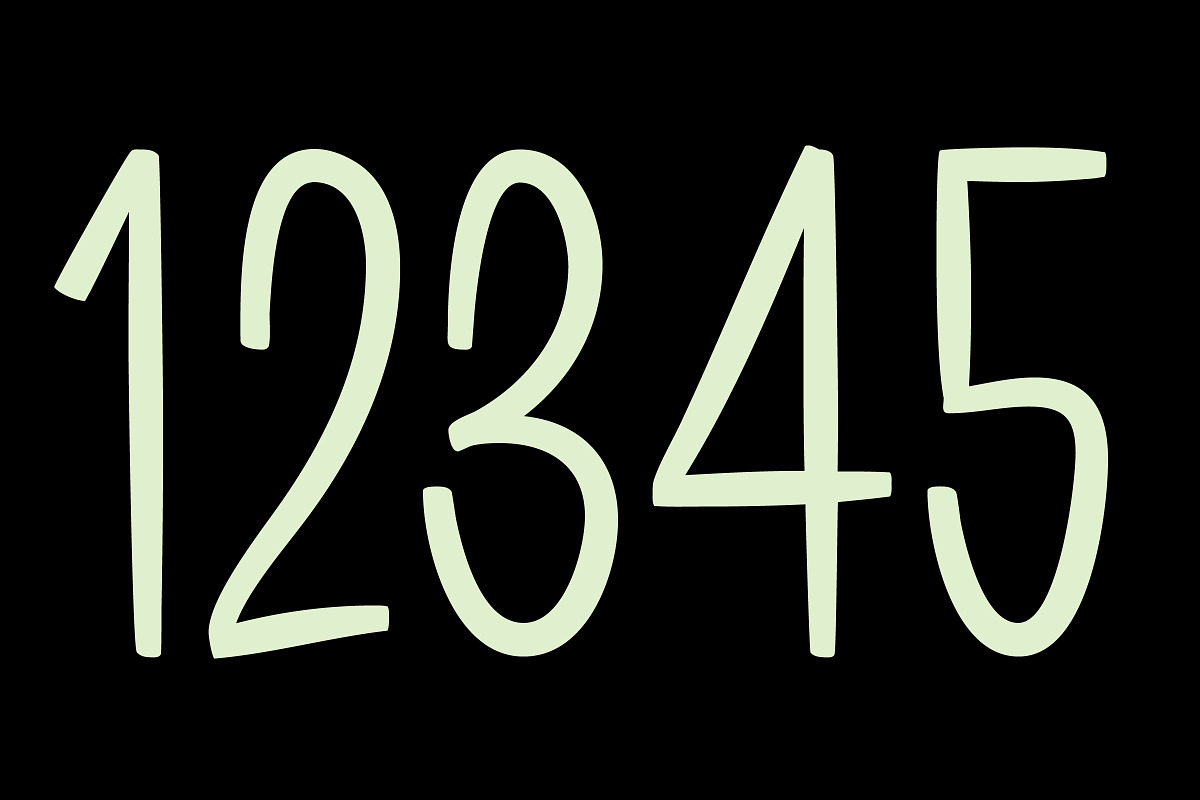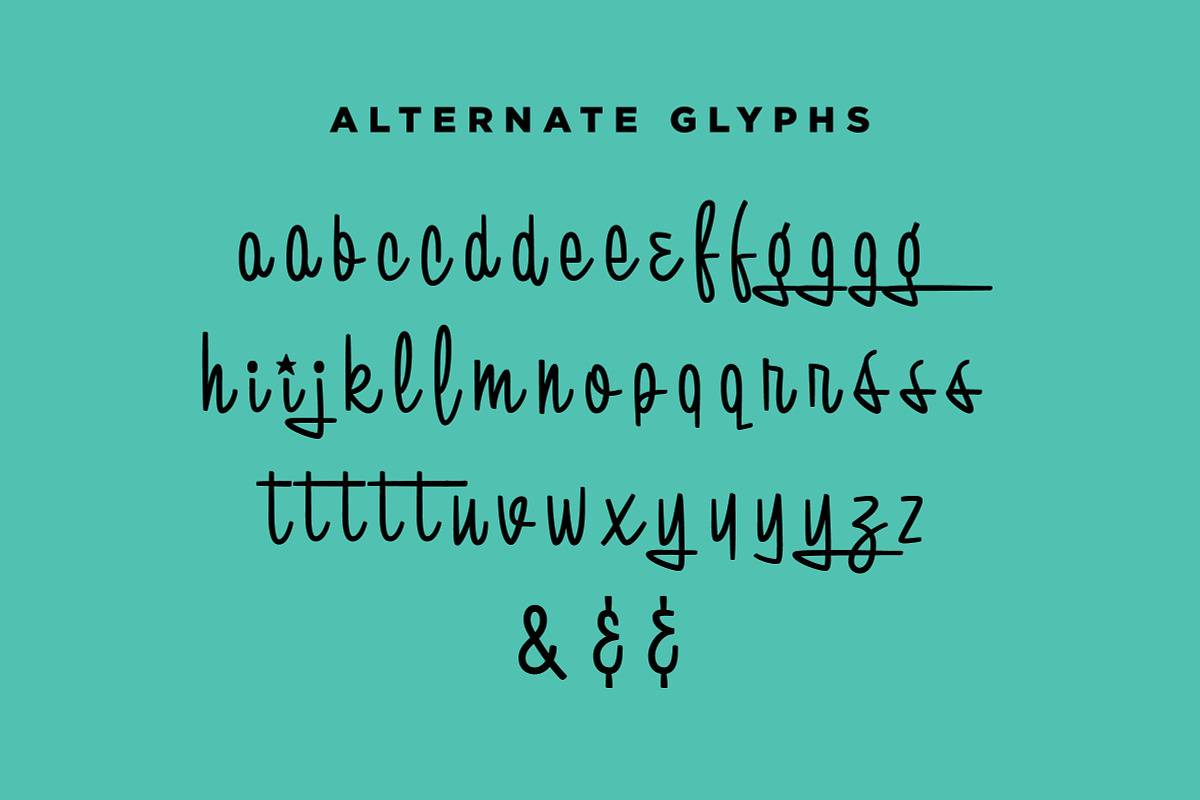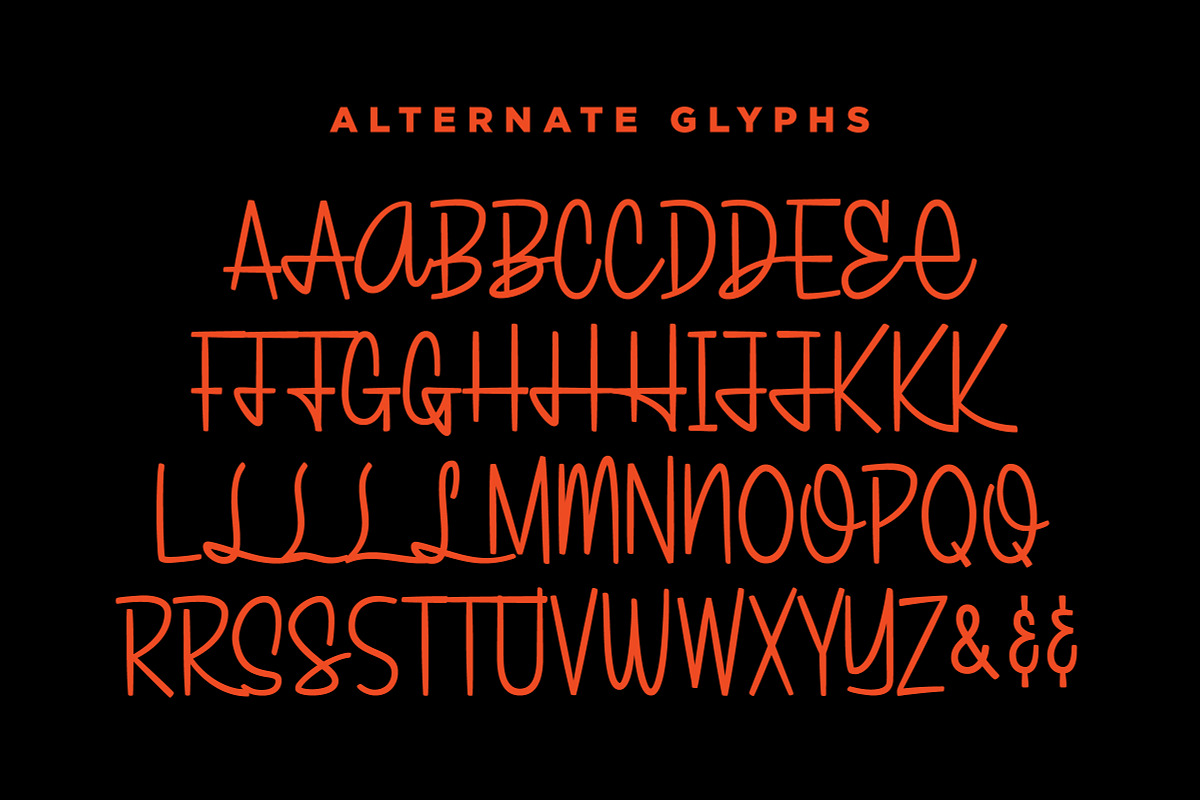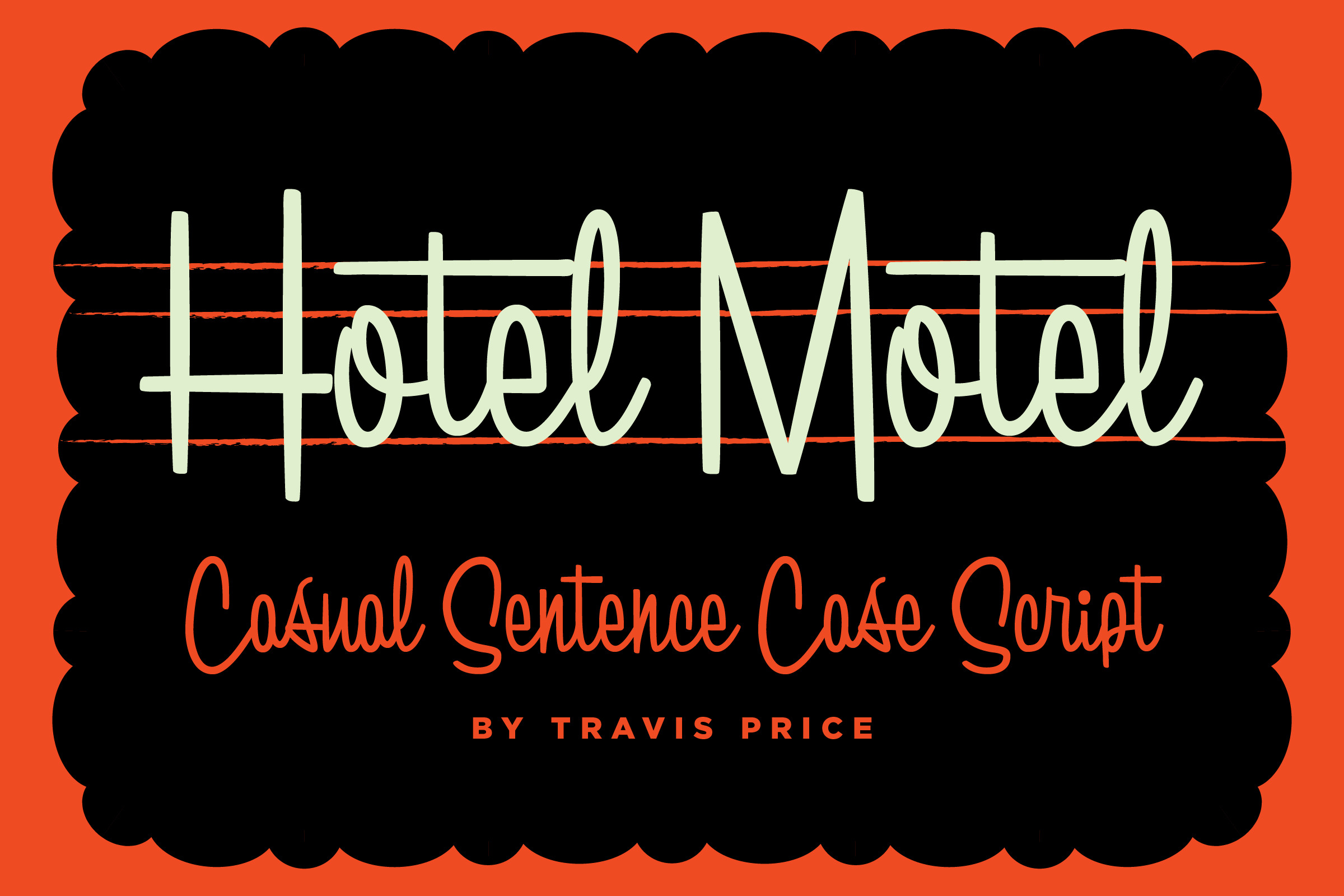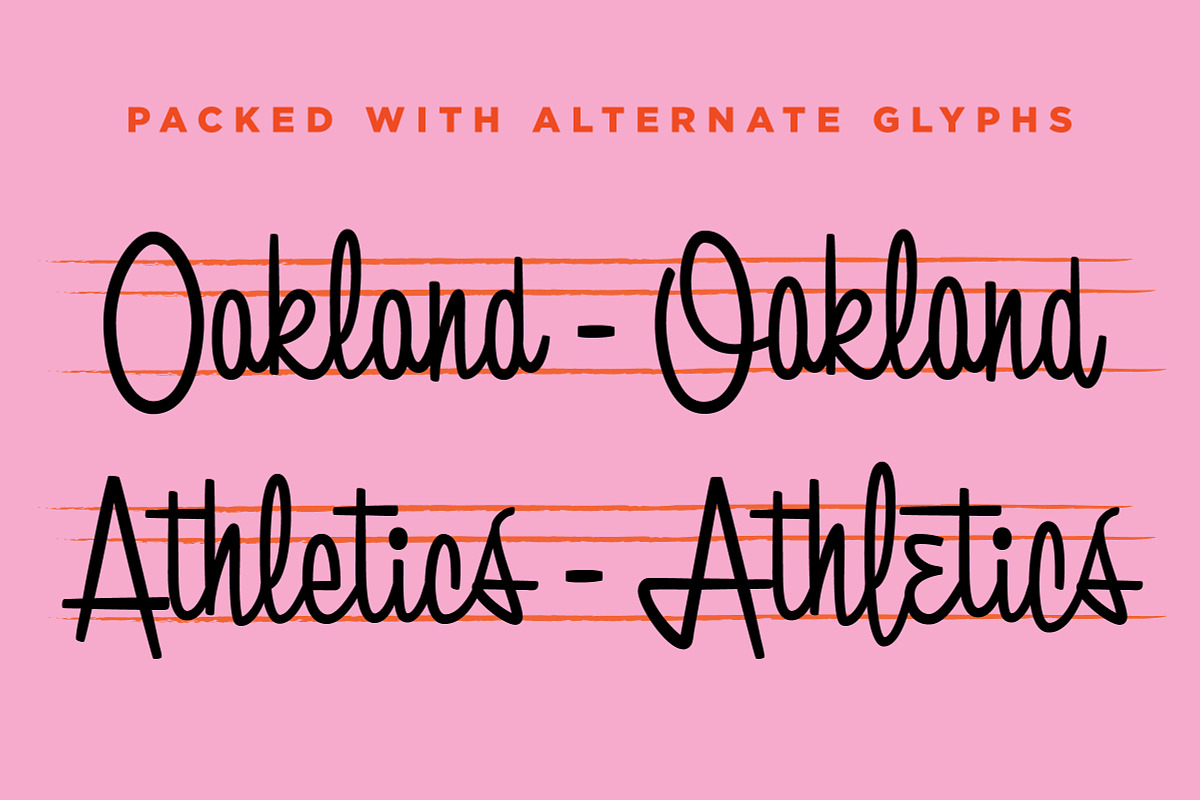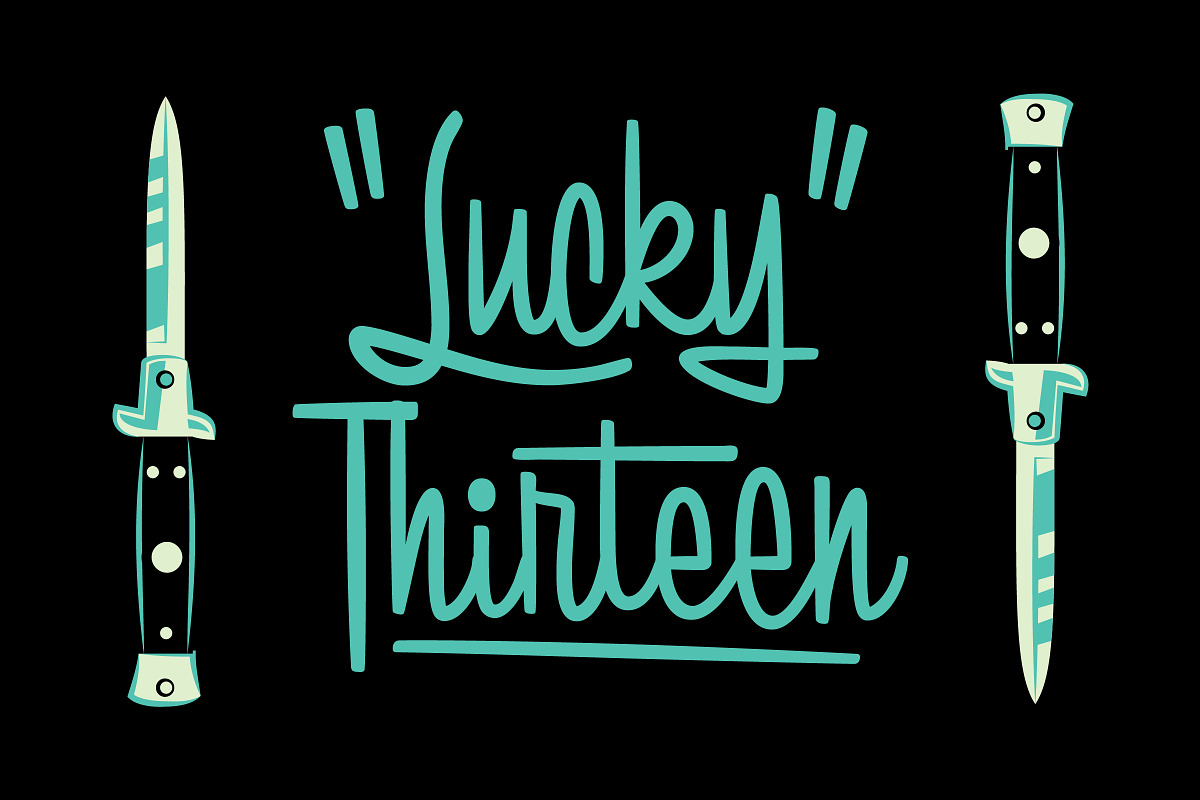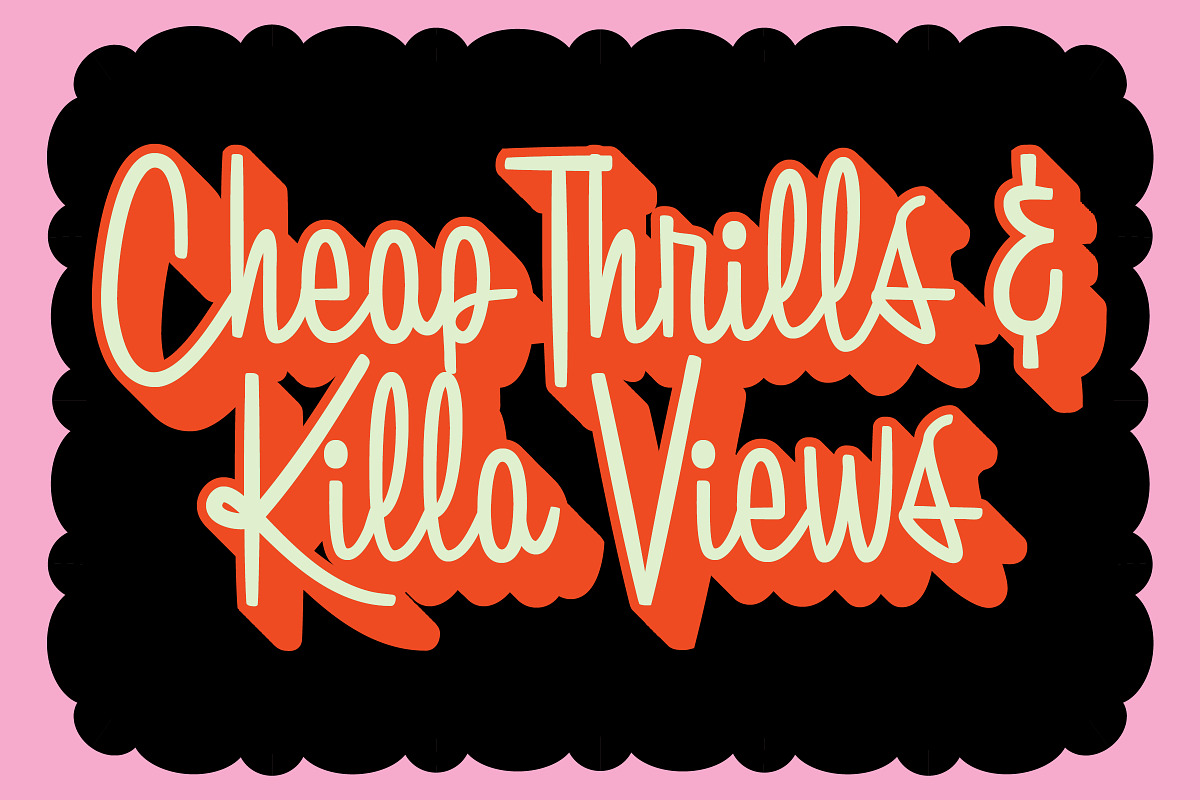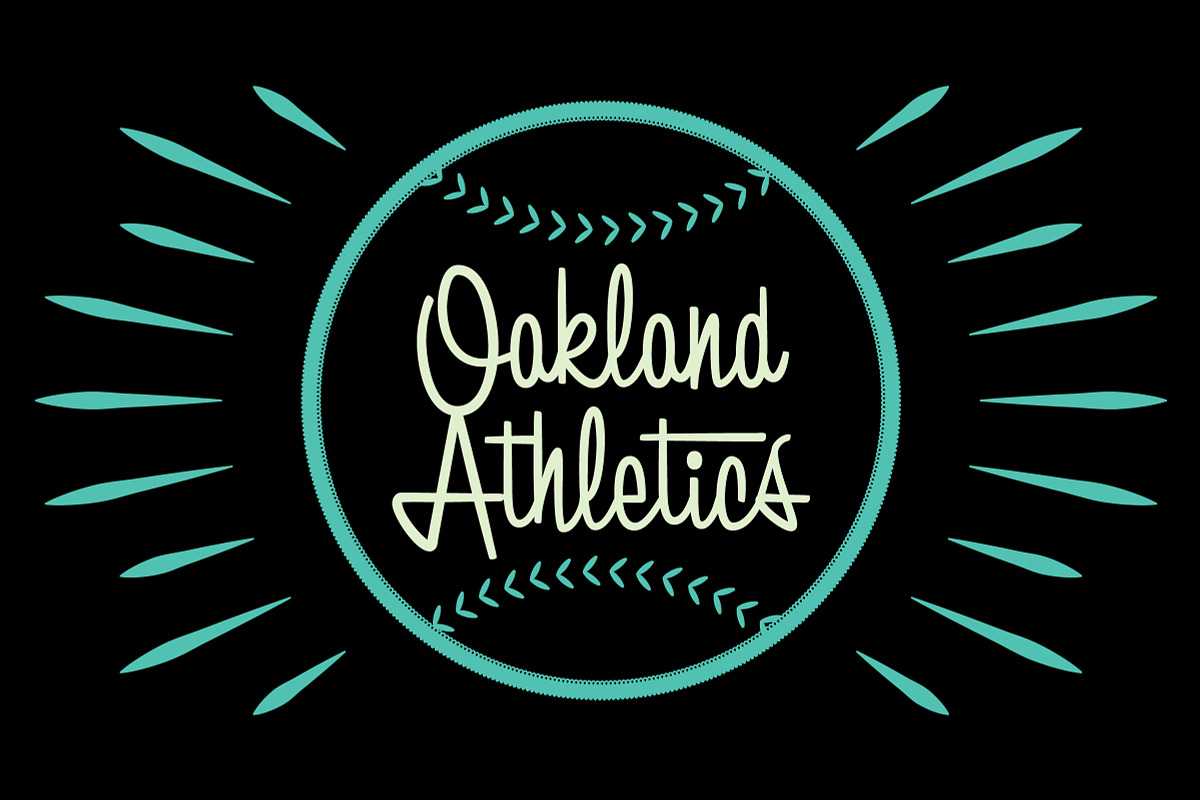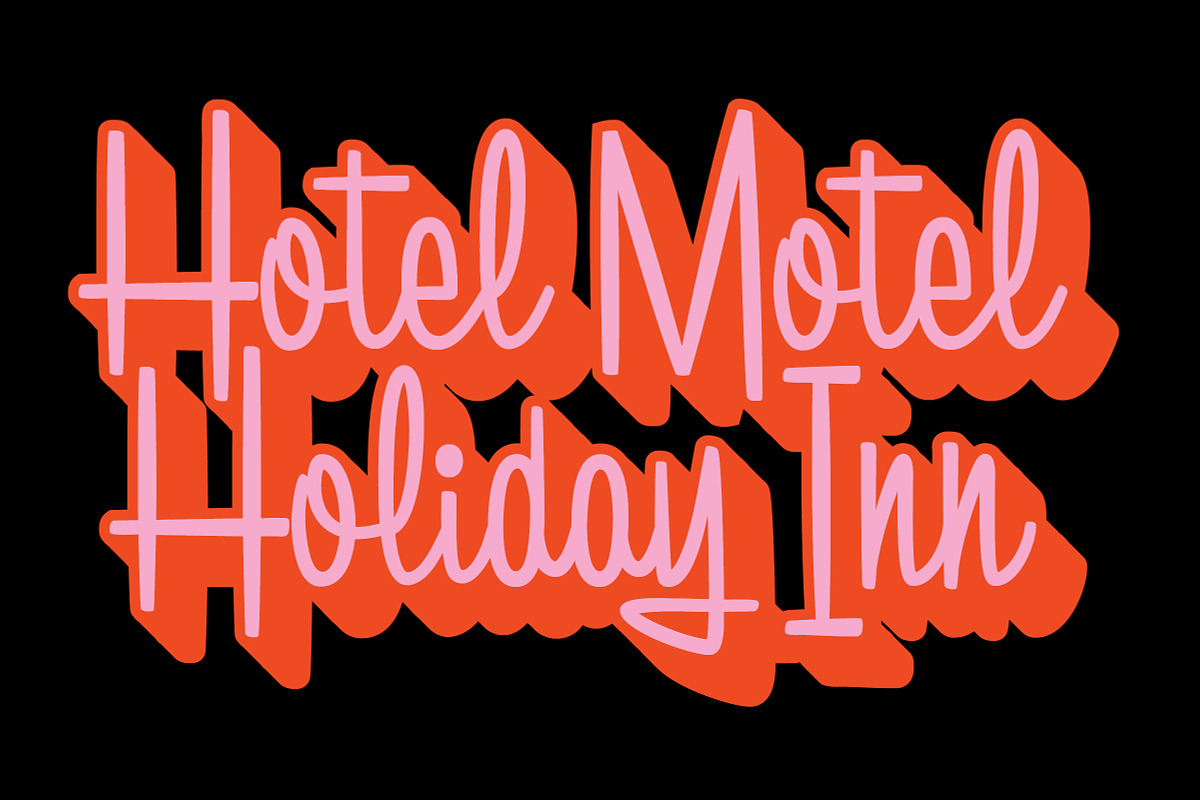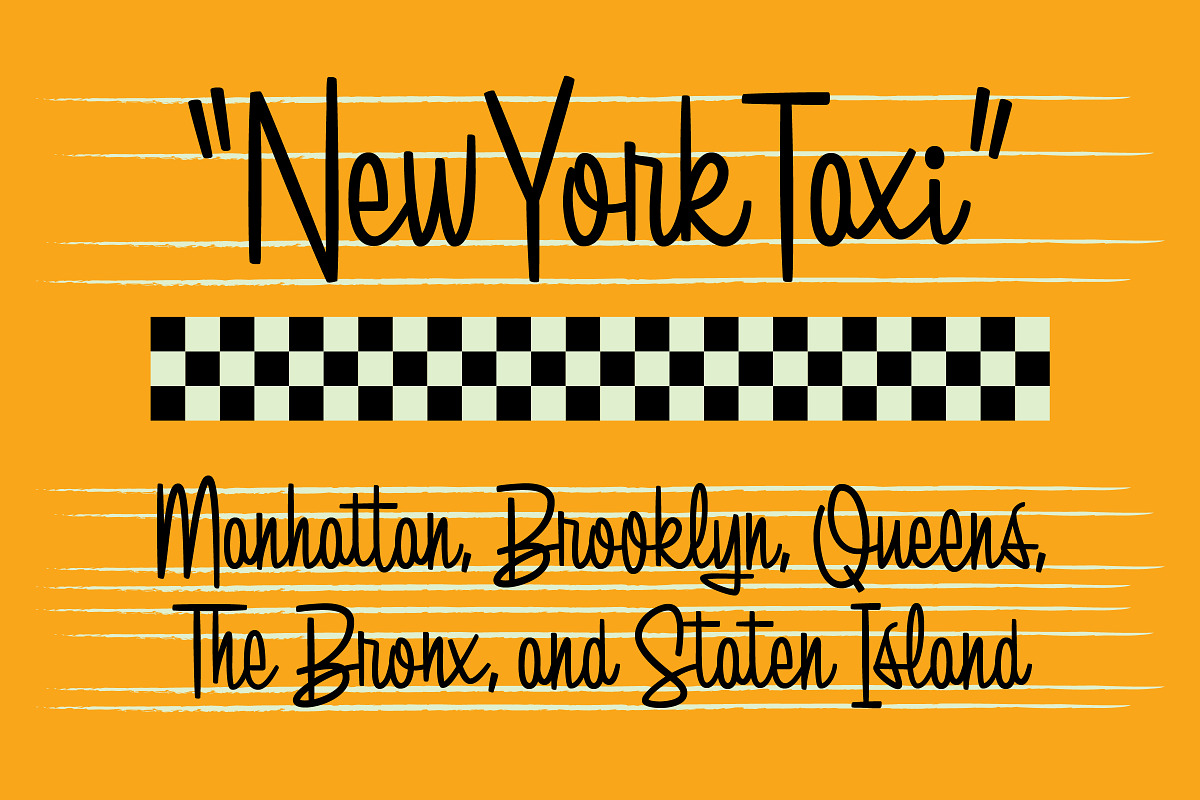
Hotel Motel Script Font
Hotel Motel is the typeface equivalent of a neon-soaked, cigarette-stained motel sign blinking at 3 a.m. somewhere on the sun-baked outskirts of civilisation. It’s a loose, hand-painted script that screams mid-century cool, the kind of letters a drunk sign painter would scrawl while the world spins sideways. For illustrators and graphic designers, it’s pure chaos with charm, perfect for logos, posters, packaging, whatever you dare to slap it on.
A mix of a mid-century sign painter script with a modern twist.